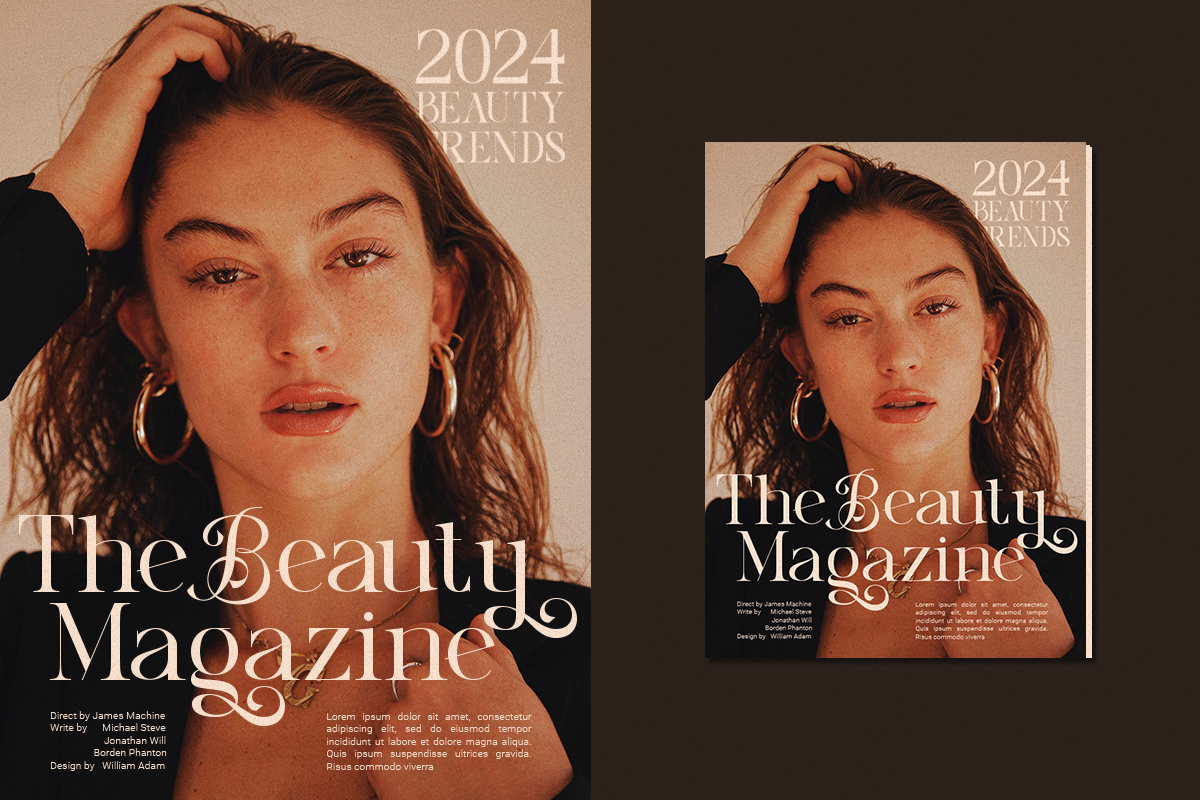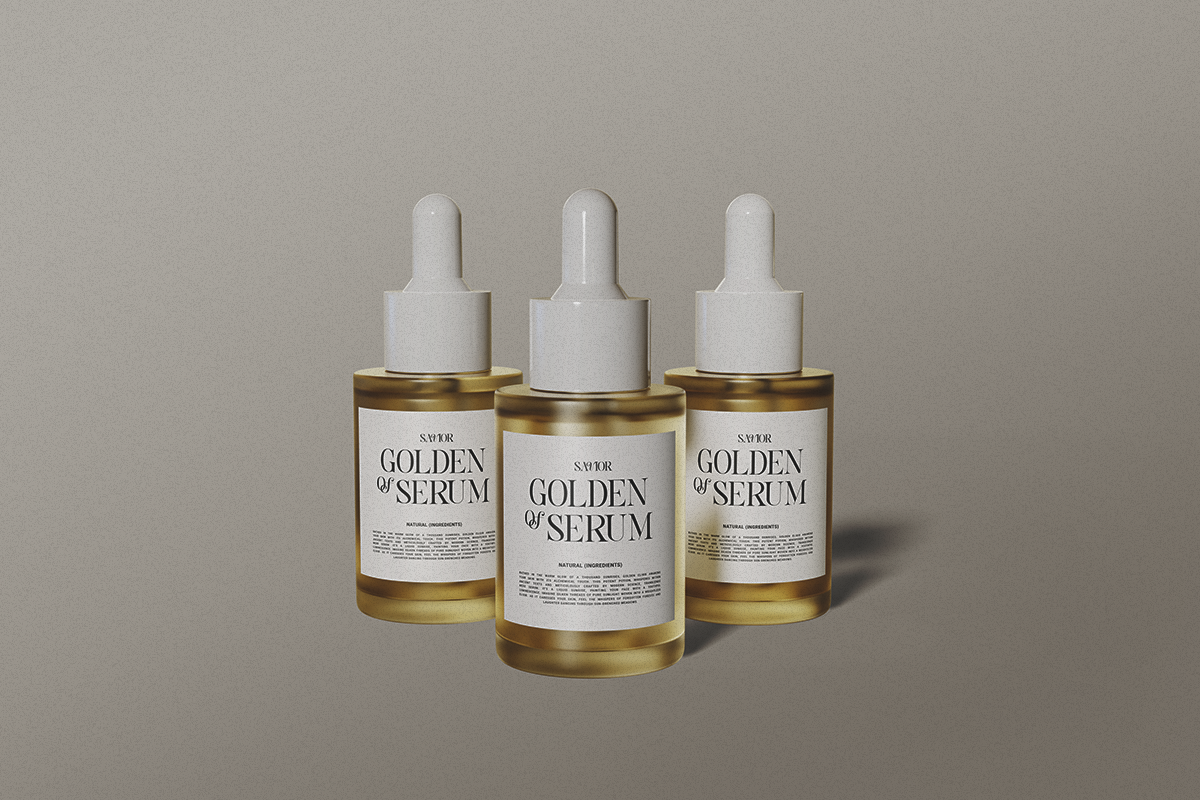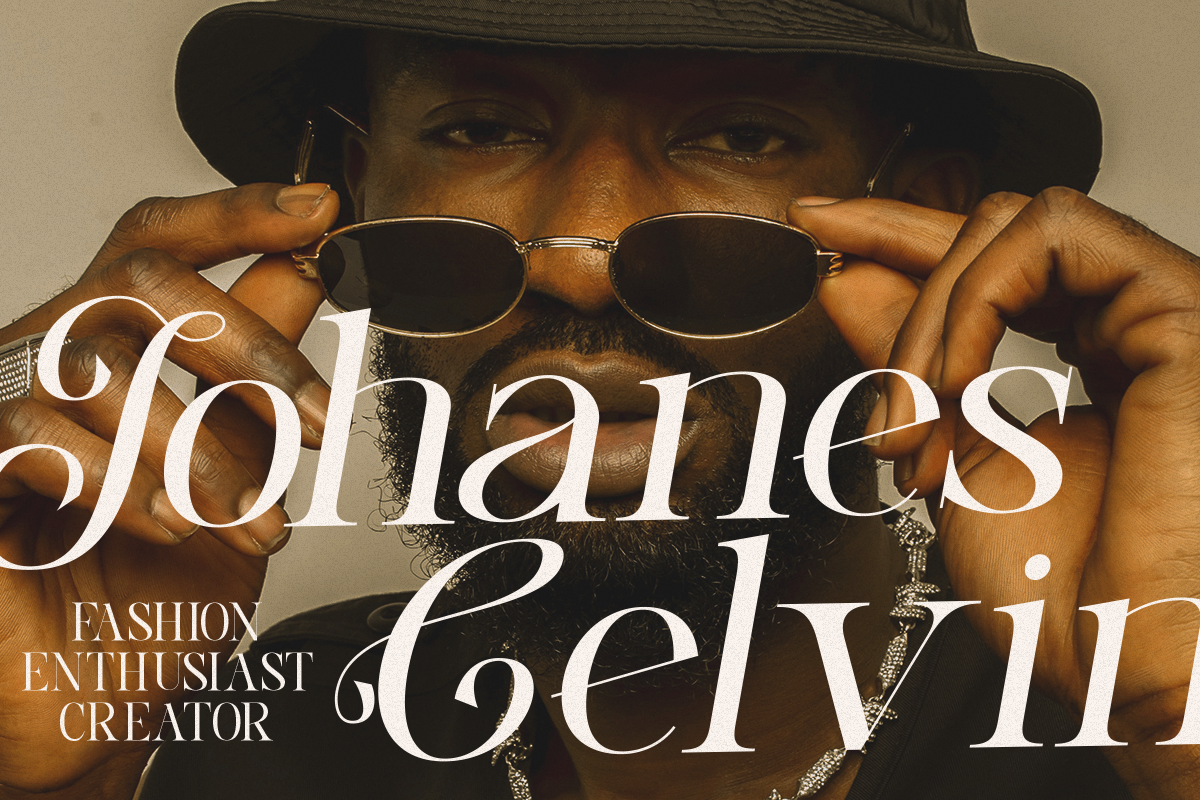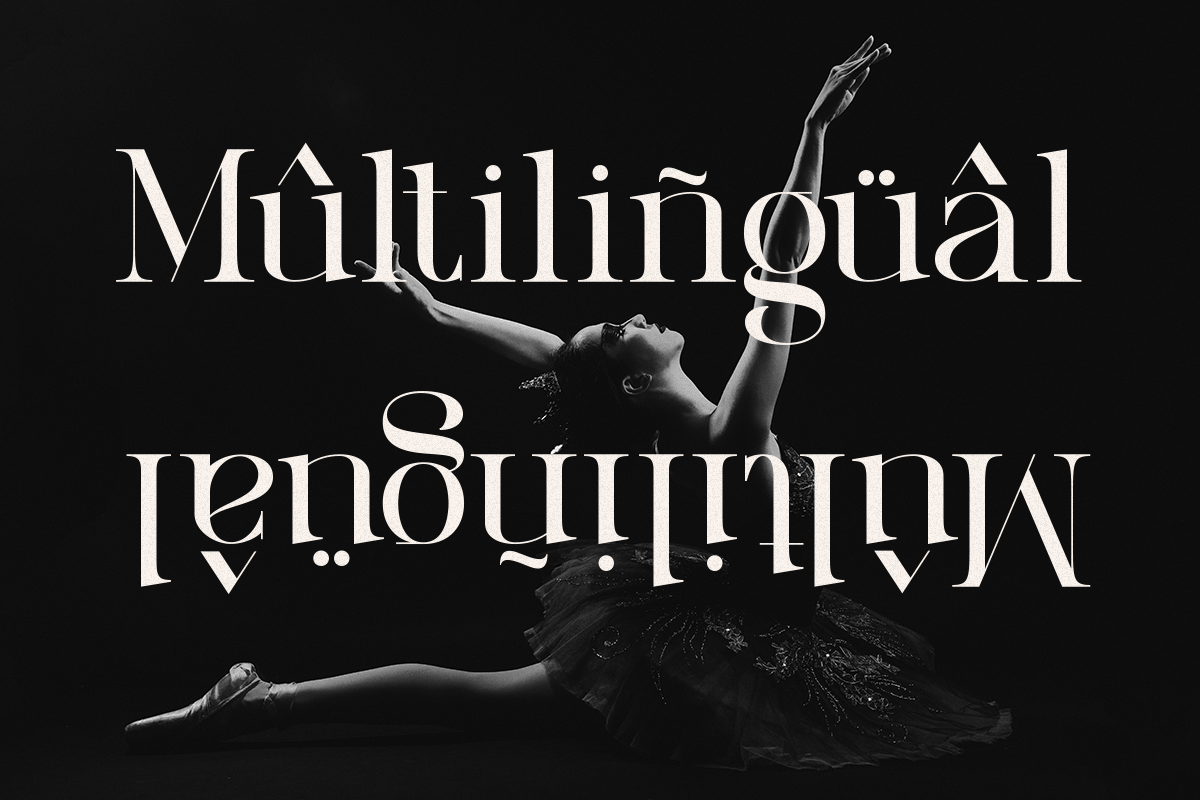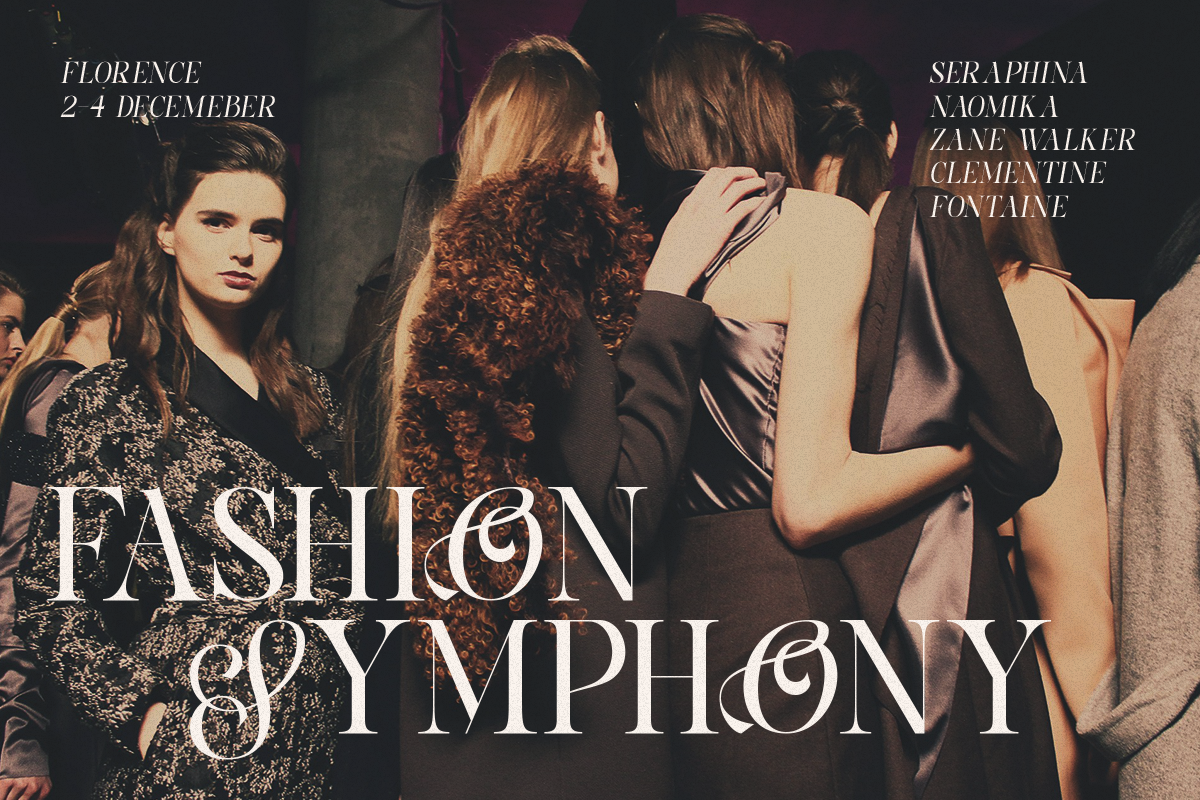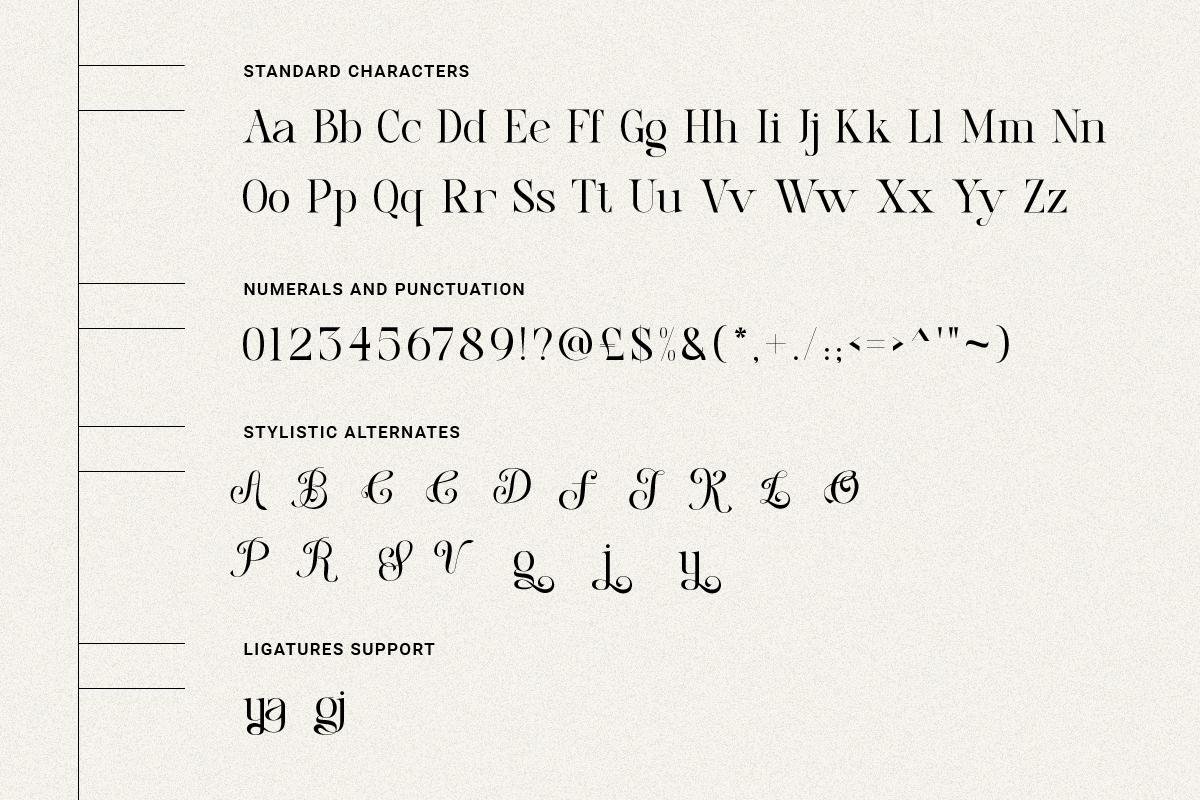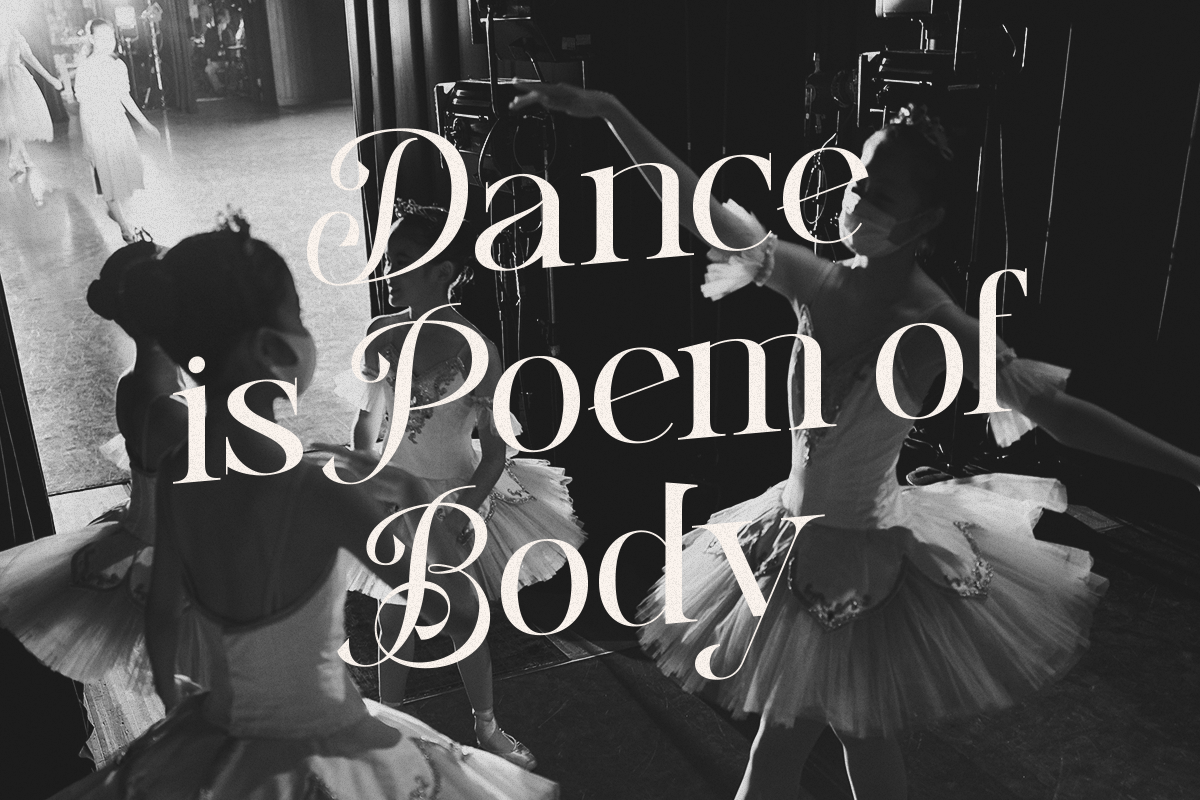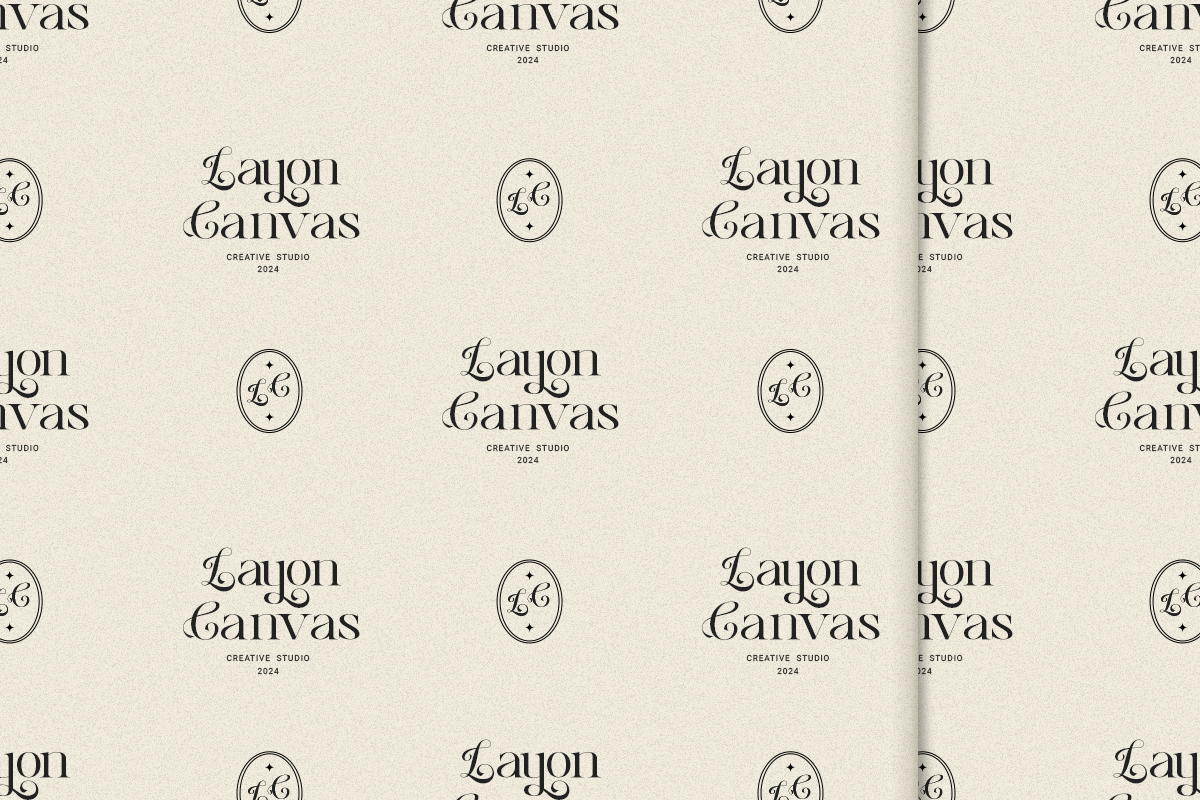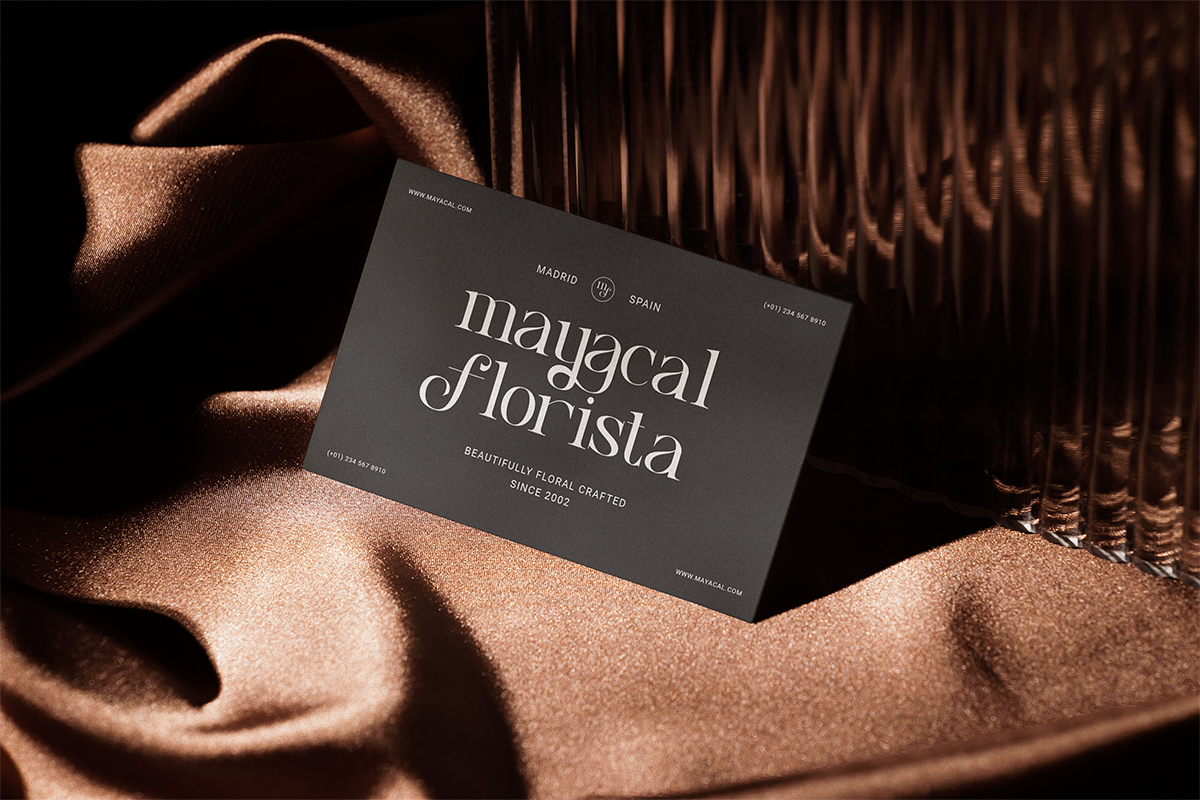
Luxe Bonanza - Resort Branding Serif
Luxe Bonanza is an old and modern style serif created with a desire for quality fonts. The number of alternatives is enormous, from simple styling alternatives to swashes, fasteners and substitutes.
Luxe Bonanza being a very versatile font with its classic shape and modern features, this font will be ideal for a variety of design projects from blog graphics, stylish quotes, wedding stationery, art prints and many others.